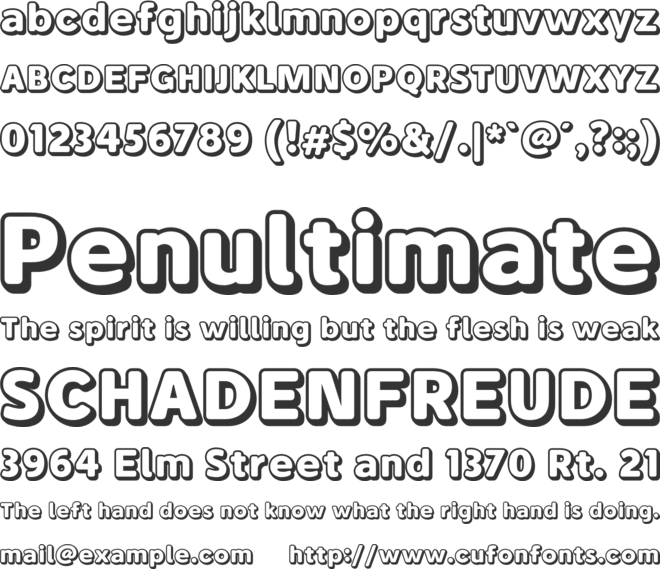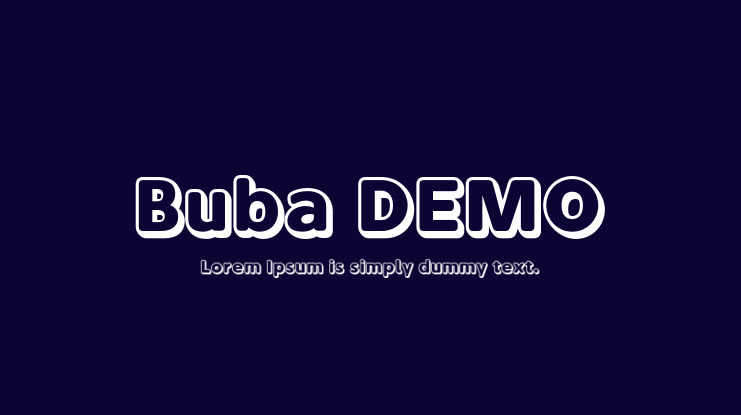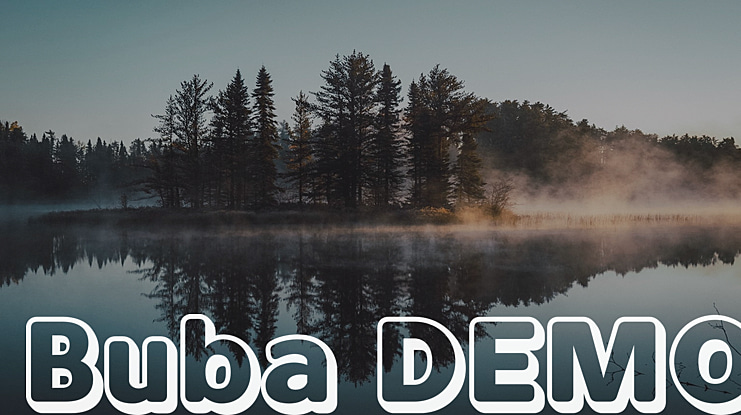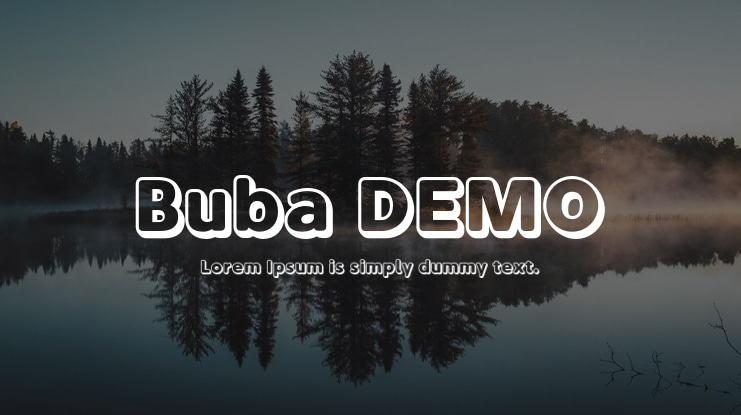
Buba DEMO Font Family
Genilson Lima Santos
Buba is a sans serif with rounded terminals. Buba comprises 6 fonts (Outline, OutlineEroded, Shadow, ShadowEroded, Stripes and StripesEroded) that can be combined in layers. It is great for display use.
Designed by Genilson Lima Santos